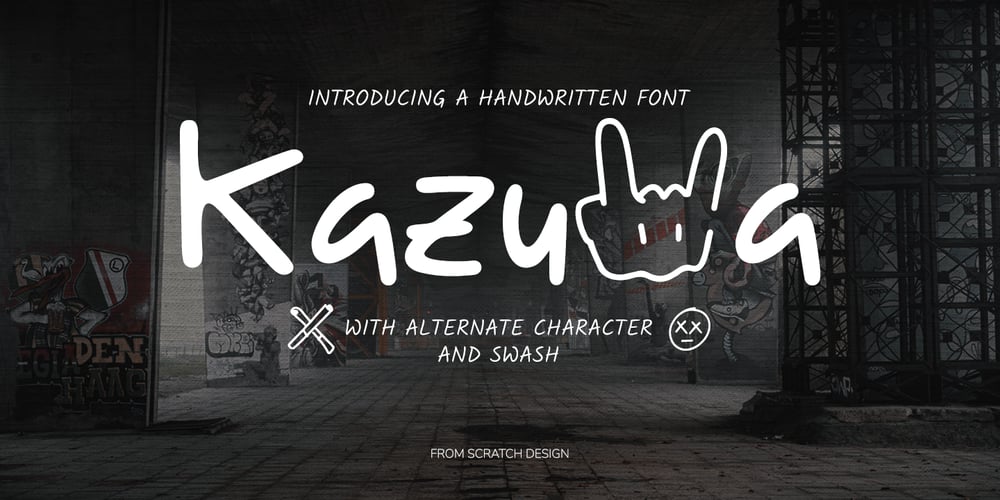
Kazuwa Font Family was designed by Gitayogi Irhandi and published by Scratch Design. Kazuwa contains 1 styles and family package options. It introduces a cute display font “Kazuwa”. This font is complete with all punctuation and multi-languages support. Kazuwa also has a unique casual shape and looks like a natural kid handwritten, so this font will be perfect when applied to the fun concept design. This font will be useful for posters, name cards, books, comics, presentations, or packaging designs. Enjoy this font, it also supports multi-languages. In some features like stylistic alternates, we put some cute illustrations to make your design more cheerful. Features: Stylistic Alternates & Ligatures Numerals & Punctuation Accented characters Multiple Languages SupportedHOW TO ACCESS ALTERNATE CHARACTERSOpen glyphs panel: In Adobe Photoshop go to Window – glyphs In Adobe Illustrator go to Type – glyphs